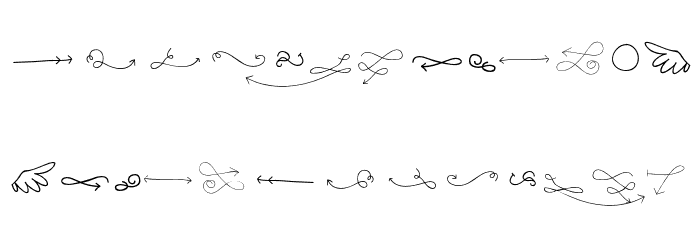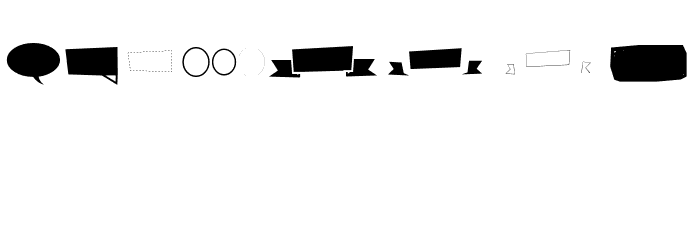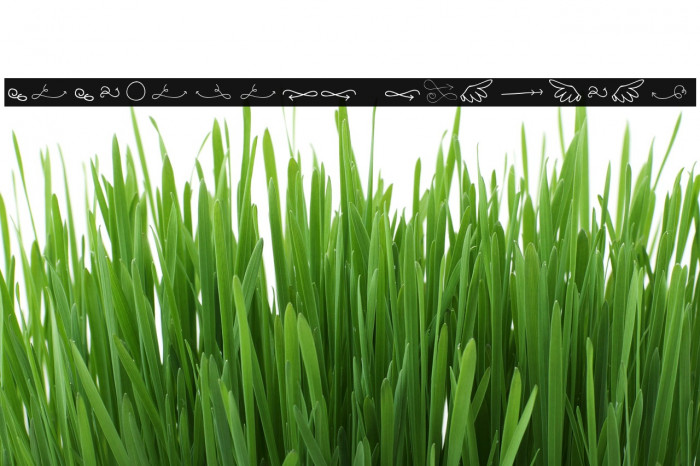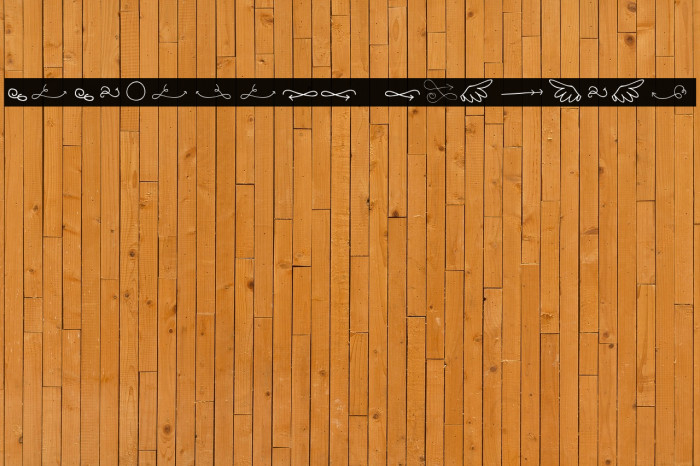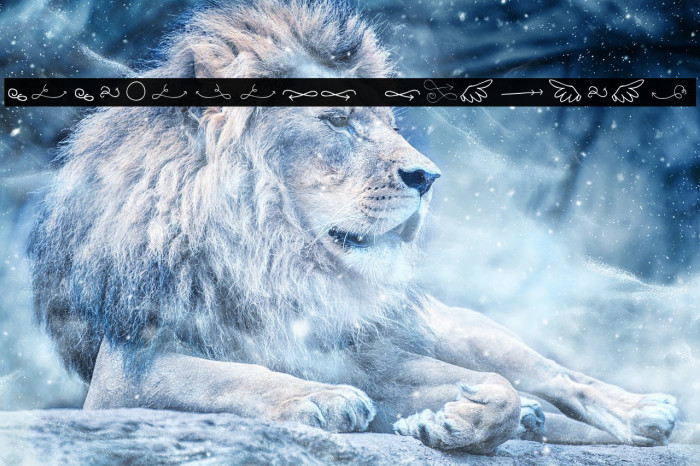
iCielCucho-Ornament Font
This collection features a variety of ornamental elements, including arrows, swirls, and hand-drawn motifs. The designs are intricate and playful, offering a whimsical touch to any project. The elements are versatile, suitable for enhancing visual interest in various creative works. The set also includes speech bubbles and banners, adding a dynamic and interactive feel. These ornaments can be used to accentuate text or as standalone decorative pieces, providing a unique and artistic flair.
A whimsical collection of ornamental elements including arrows, swirls, and banners.
- Proposed Projects: Ideal for invitations, greeting cards, scrapbooking, and creative design projects needing decorative accents.
- Use Case: Decorative accents, Invitations, Greeting cards